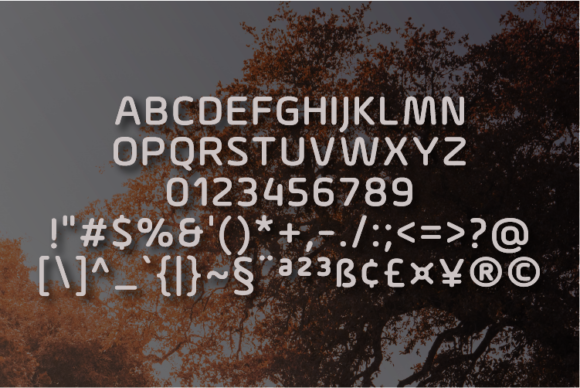
Introducing Deckero Font: The Futuristic Sans Serif for Modern Design
In the world of typography, fonts play a crucial role in shaping the visual identity of a brand, product, or design. With the ever-evolving landscape of design trends, it’s essential to stay ahead of the curve with fresh and innovative typography. This is where Deckero Font comes in – a futuristic sans serif font designed to elevate your designs to new heights.
What is Deckero Font?
Deckero is a modern sans serif font that exudes a sense of futurism and sophistication. Its clean lines, geometric shapes, and carefully crafted letterforms make it an ideal choice for designers and crafters looking to add a touch of innovation to their work. Whether you’re creating logos, branding materials, packaging designs, or any other visual project, Deckero Font is sure to make a statement.
Key Features of Deckero Font
- Clean and Geometric Design: Deckero’s sans serif design ensures that your text remains clear and legible, even at smaller font sizes. Its geometric shapes and lines create a sense of modernity and sleekness.
- High Versatility: Deckero Font is designed to be versatile, making it suitable for a wide range of applications, from logos and branding to packaging design, posters, and more.
- Easy to Read: The font’s carefully crafted letterforms ensure excellent readability, making it perfect for body text, headings, and titles.
- Scalable: Deckero Font is designed to perform well at various font sizes, ensuring that your designs look great whether they’re viewed on a large billboard or a small mobile device.
Use Cases for Deckero Font
Deckero Font’s futuristic and modern design makes it an excellent choice for various design projects. Here are some use cases where Deckero Font truly shines:
- Logo Design: Create a lasting impression with a custom logo that incorporates Deckero Font. Its unique design ensures that your brand stands out from the competition.
- Branding and Identity: Establish a strong visual identity for your brand with Deckero Font. Use it across various marketing materials, such as business cards, brochures, and letterheads.
- Packaging Design: Add a touch of modernity to your product packaging with Deckero Font. Its clean design ensures that your product stands out on store shelves.
- Digital and Print Media: Use Deckero Font in digital and print media, such as posters, flyers, and social media graphics, to create visually appealing and engaging content.
Tips for Using Deckero Font
To get the most out of Deckero Font, here are some tips to keep in mind:
- Experiment with Font Sizes: Deckero Font performs well at various font sizes. Experiment with different sizes to find the perfect balance for your design.
- Pair with Other Fonts: Combine Deckero Font with other fonts to create visual interest and hierarchy in your design.
- Play with Colors: Deckero Font looks great in a variety of colors. Experiment with different color schemes to find the perfect match for your brand or design.
In conclusion, Deckero Font is a powerful tool for designers and crafters looking to add a touch of futurism to their work. Its clean design, versatility, and excellent readability make it an ideal choice for a wide range of applications. Whether you’re creating logos, branding materials, packaging designs, or any other visual project, Deckero Font is sure to elevate your designs to new heights.